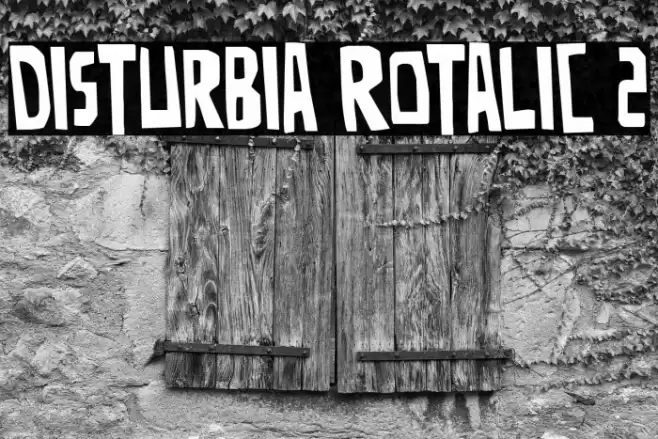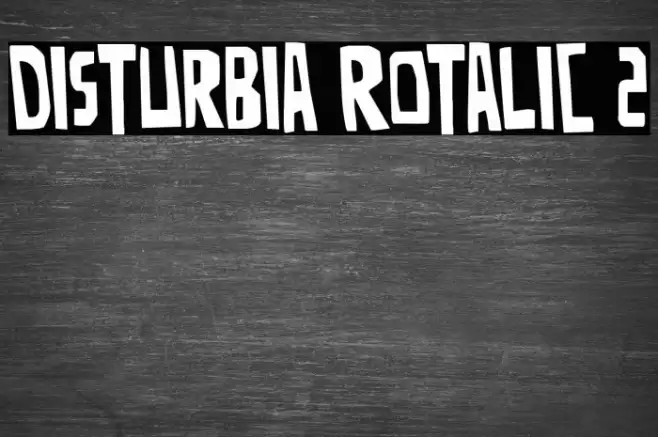
Disturbia Rotalic 2 Font
Disturbia Rotalic 2 Description
This font features a bold and dynamic style with a slightly distorted and irregular appearance, giving it a unique and edgy character. The uppercase and lowercase letters are designed with sharp angles and varying stroke widths, creating a sense of movement and energy. The numbers and special characters follow the same design principles, maintaining consistency throughout. Its unconventional style makes it stand out, perfect for projects that require a strong visual impact.
A bold, edgy font with irregular, dynamic strokes from Regular fonts.
- Proposed Projects: Ideal for music album covers, movie posters, or any design needing a bold, unconventional look.
- Use Case: Headlines, Posters, Logos